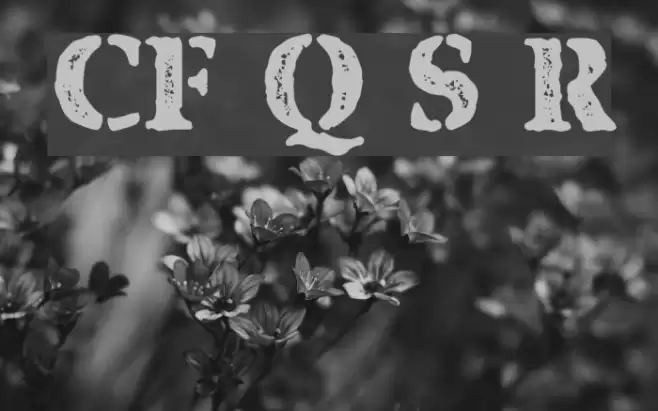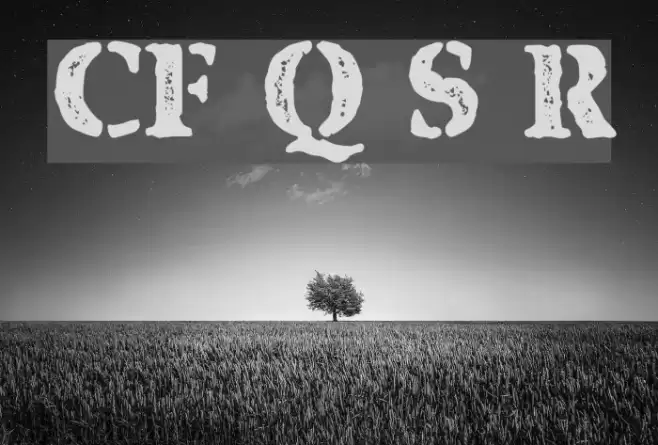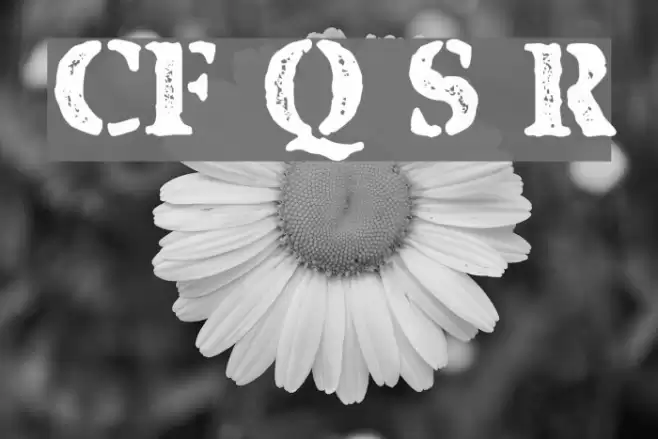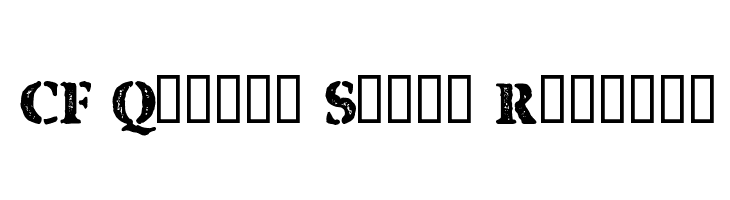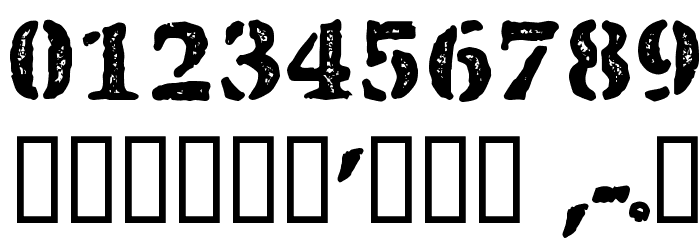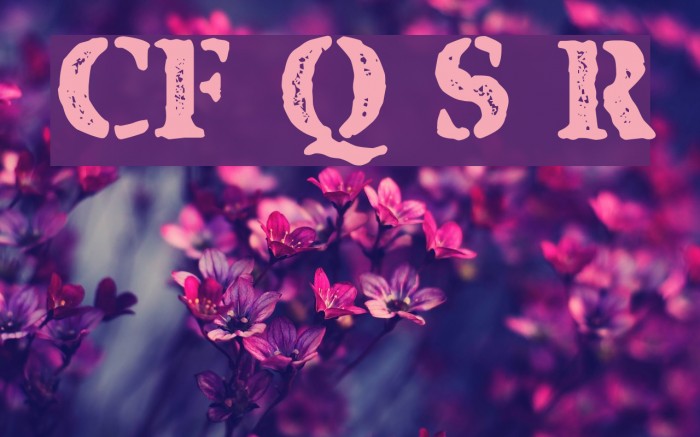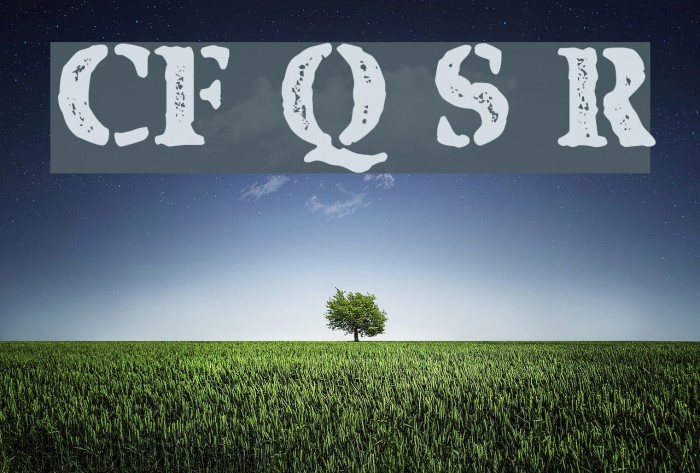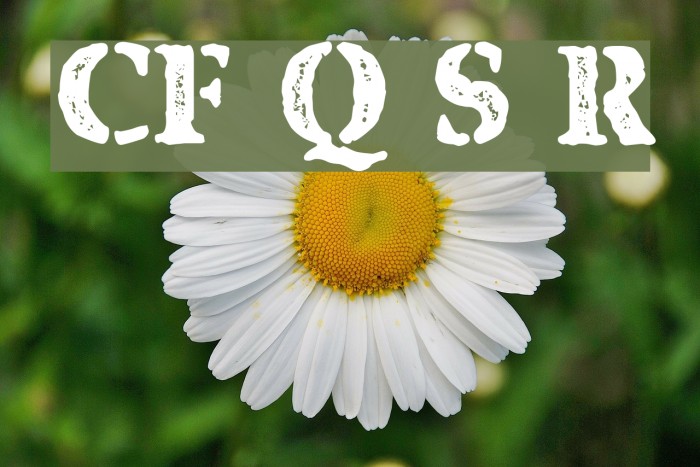
CF Quebec Stamp Regular Font
CF Quebec Stamp Regular Description
This font features a distressed, textured style reminiscent of vintage rubber stamps. The uppercase letters are bold and display a rugged, weathered look, giving them a unique, handcrafted appearance. The numbers follow the same aesthetic, maintaining consistency across the typeface. The font's rough edges and uneven texture add character, making it ideal for projects that require a rustic or industrial feel. Its distinct style captures attention and conveys a sense of authenticity and nostalgia.
A distressed, textured font with a vintage stamp-like appearance from Uncategorized fonts.
- Proposed Projects: Ideal for vintage-themed designs, posters, branding for artisanal products, and any project needing a rustic, authentic touch.
- Overall Style: Vintage